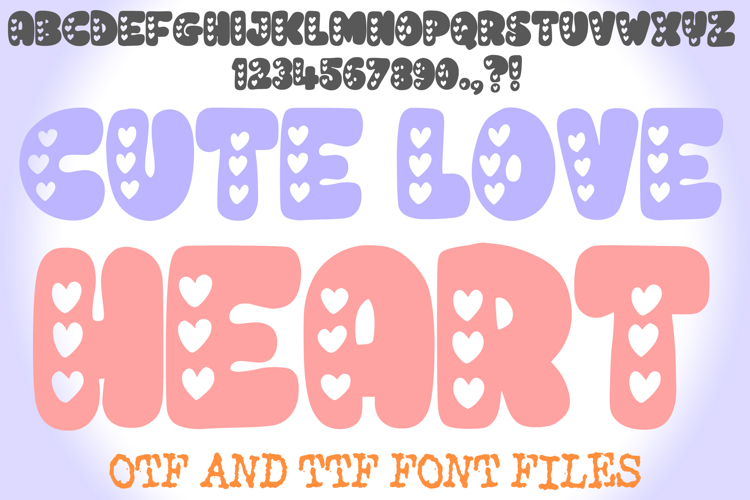
Cute Love Heart Handwriting Alphabet Lettering ABC Text Font
Spread the love and charm with Cute Love Heart Font! This utterly adorable typeface is overflowing with affection, featuring plump, bubbly letterforms delightfully filled with tiny, whimsical hearts. It's more than just a font; it's an instant hug in typographic form, perfect for projects that need a touch of heartwarming cuteness, romantic flair, and an undeniable sprinkle of joy!
Each character in Cute Love Heart Font is crafted with a sweet, rounded outline, and its interior beats with a collection of charming little hearts. This unique and endearing visual effect makes it an ideal choice for Valentine's Day cards, wedding invitations, baby shower decor, romantic branding, anniversary gifts, children's books, or any design calling for a unique blend of sweetness, affection, and whimsical charm.
Whether you're creating heartfelt messages, designing adorable product packaging, crafting loving social media posts, or adding a cheerful touch to digital art, this font will bring an undeniable sense of fun, originality, and a vibrant, affectionate aesthetic to your work. Its clear yet bubbly forms ensure readability while delivering a memorable visual experience.
If you're looking to infuse your designs with a sense of playful romance, charming cuteness, and an undeniable touch of love, Cute Love Heart Font is your ultimate tool. Let your creativity overflow with affection!